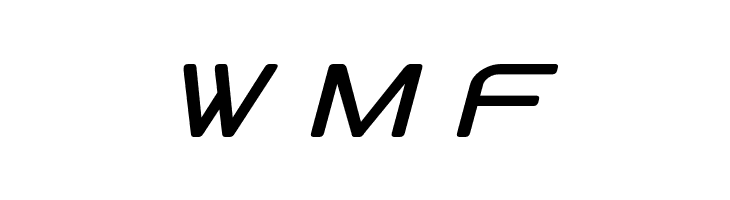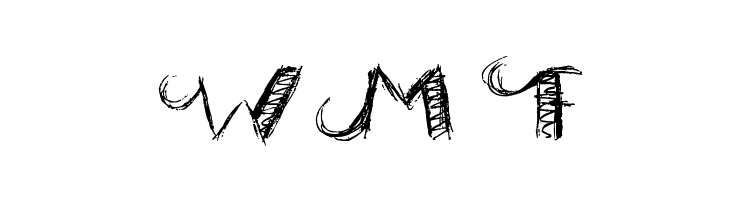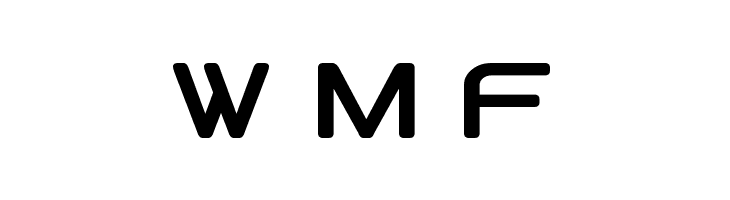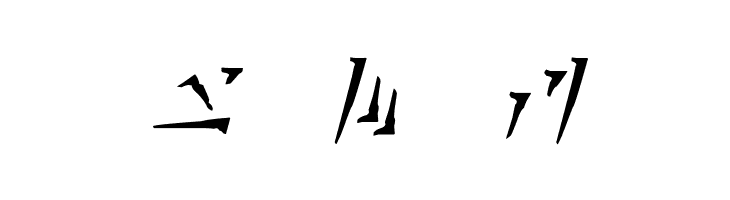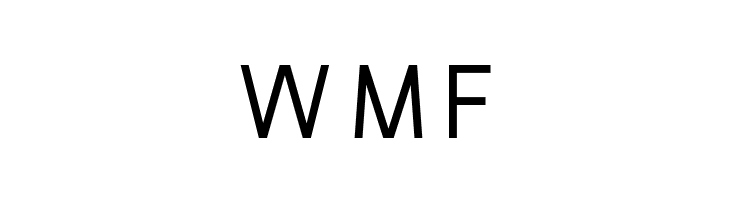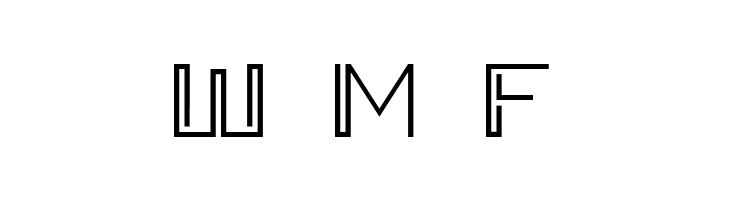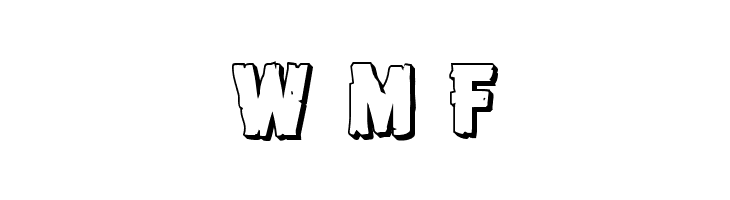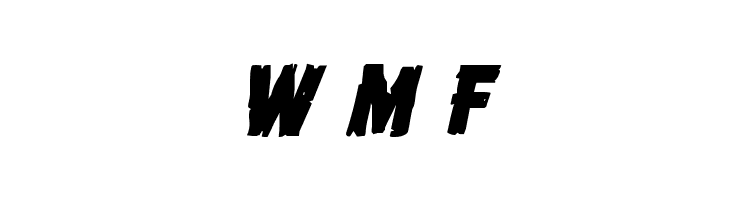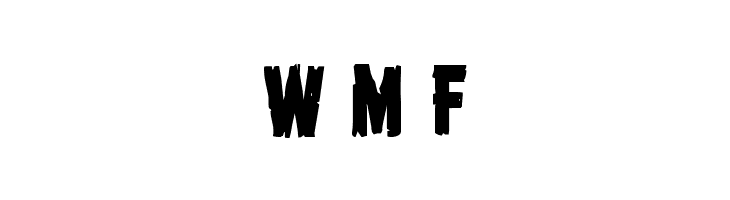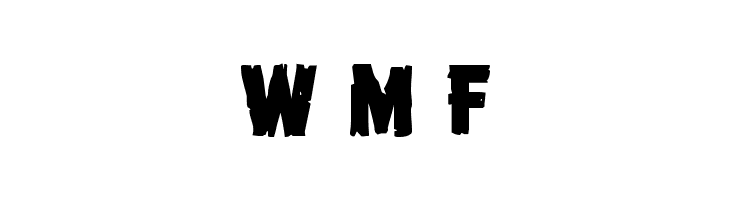
A playful, dotted italic typeface with a modern and dynamic style.
A dot-based, geometric font with a futuristic and digital aesthetic.
A modern, double-line font with a geometric and futuristic style.
A bold, angular font inspired by ancient runic scripts, ideal for fantasy themes.
A bold, decorative script inspired by ancient runic alphabets with a mythical and adventurous style.
A bold, italicized font with angular, rune-like characters.
A dynamic, angular font with a runic, italicized style.
A playful 3D outline font with a bold, cartoonish style.
A playful 3D outline font with bold, rounded characters and a dynamic shadow effect.
A modern, geometric font with rounded edges and a tech-inspired design.
A modern, rounded font with a bold, futuristic style.
A bold, italic, and modern font with a tech-inspired aesthetic.
A modern, italic font with geometric precision and a futuristic aesthetic.
A bold, playful font with dice and gaming symbols, perfect for decorative use.
Geometric, dice-themed symbol font with numbers, directions, and dots.
Geometric triangular symbols with numbers and compass directions.
Dice-themed decorative font with numbers and dot patterns in pentagons.
Numerals inside twelve-sided polygon shapes, resembling dice.
A bold, playful handwritten font with thick, rounded strokes.
A bold, distressed font with a gritty, textured appearance.
A modern, geometric sans-serif font with clean lines and balanced proportions.
A hand-drawn, sketch-style font with playful curves and textured strokes.
A bold, distressed font with a rugged, grunge-like appearance.
A bold, 3D cartoonish font with rugged edges and a playful style.
A bold, 3D italic font with a playful and dynamic style.
A bold, distressed, condensed font with an edgy, urban style.
A bold, condensed, and italicized font with a rugged, distressed style.
A bold, rugged font with distressed edges and an expanded width.
A bold, italicized font with an expanded width and rugged, dynamic style.
A bold, italic font with a rugged and dynamic style.
A bold, distressed decorative font with rugged, irregular edges.